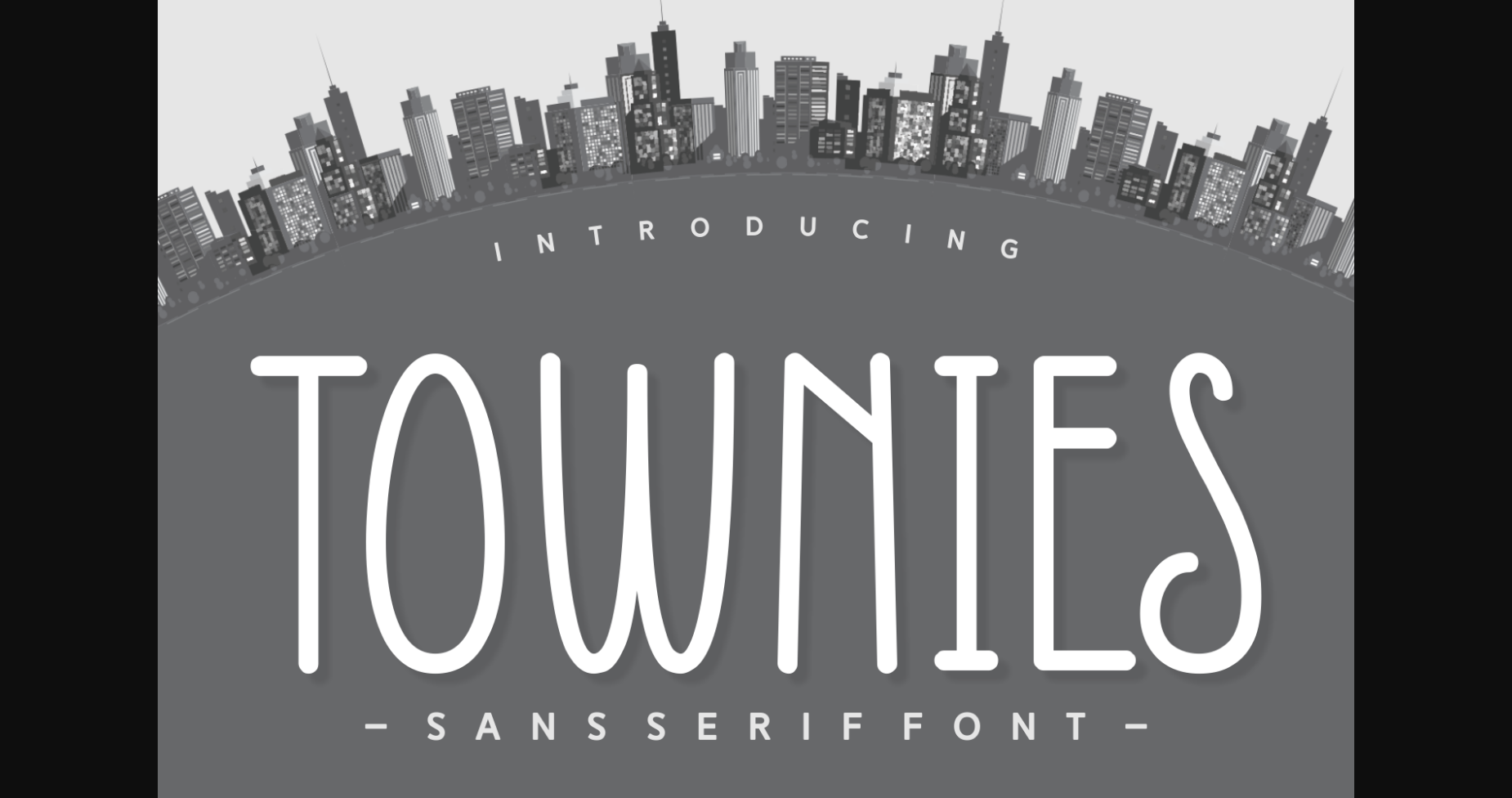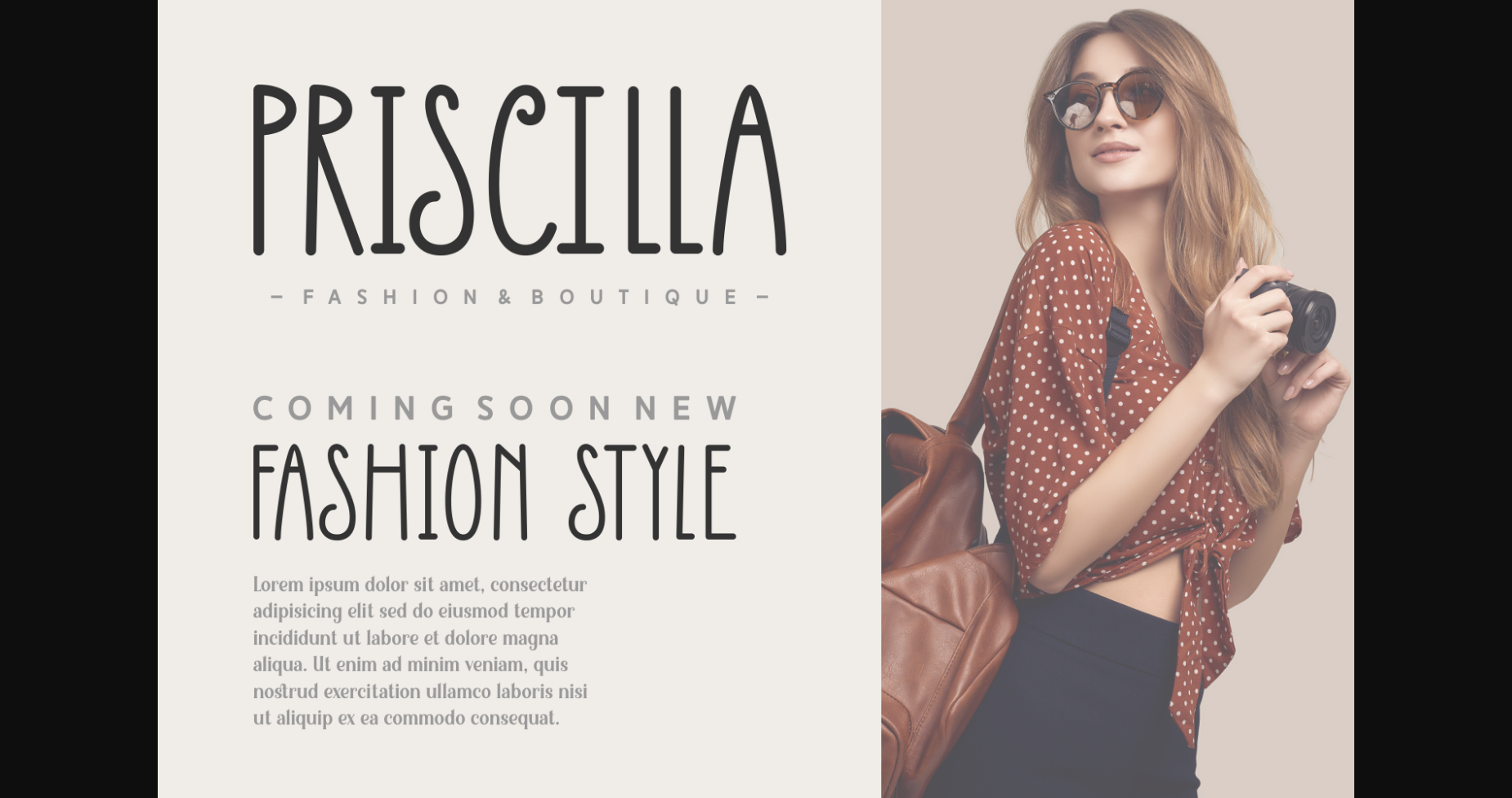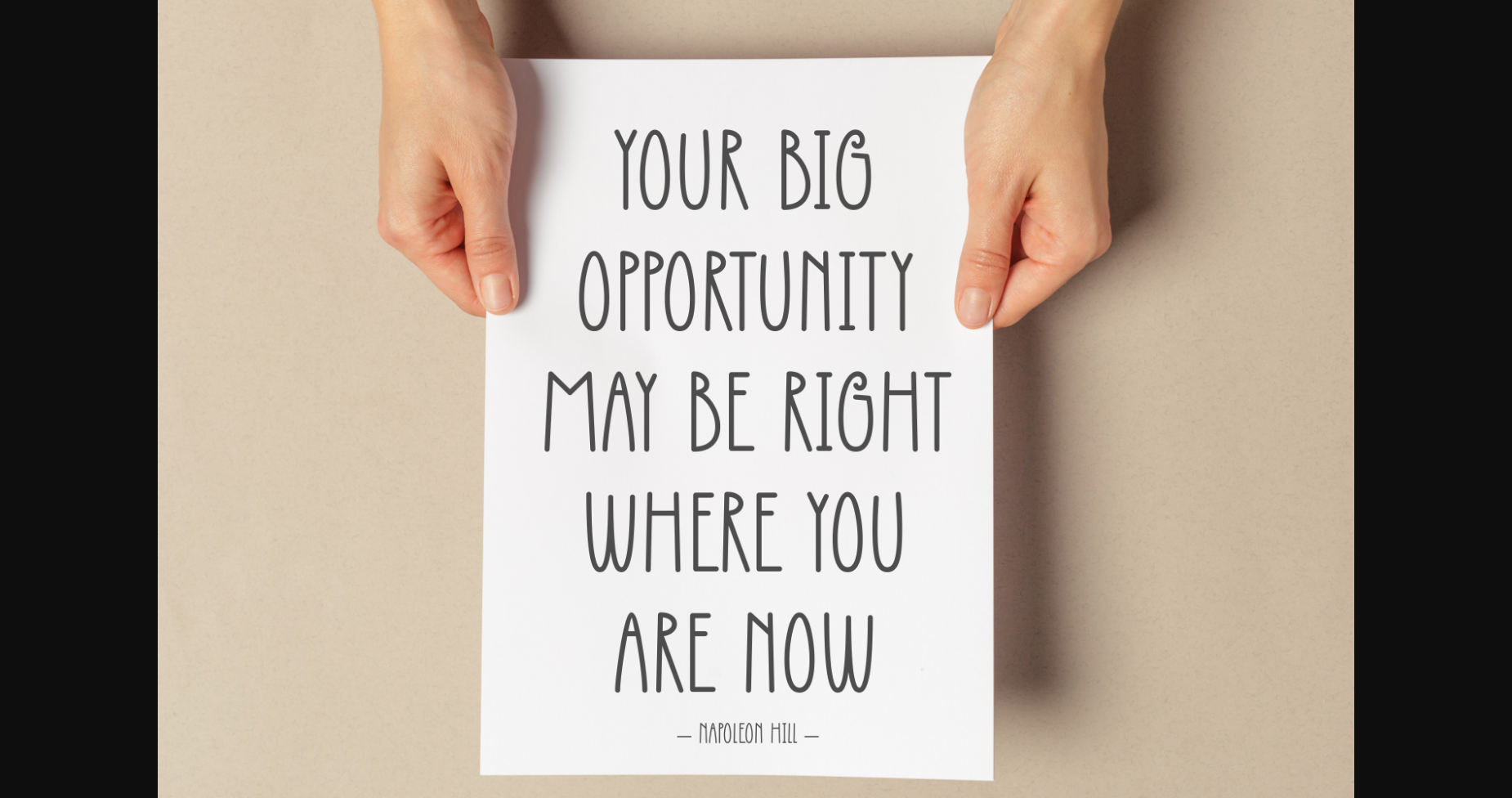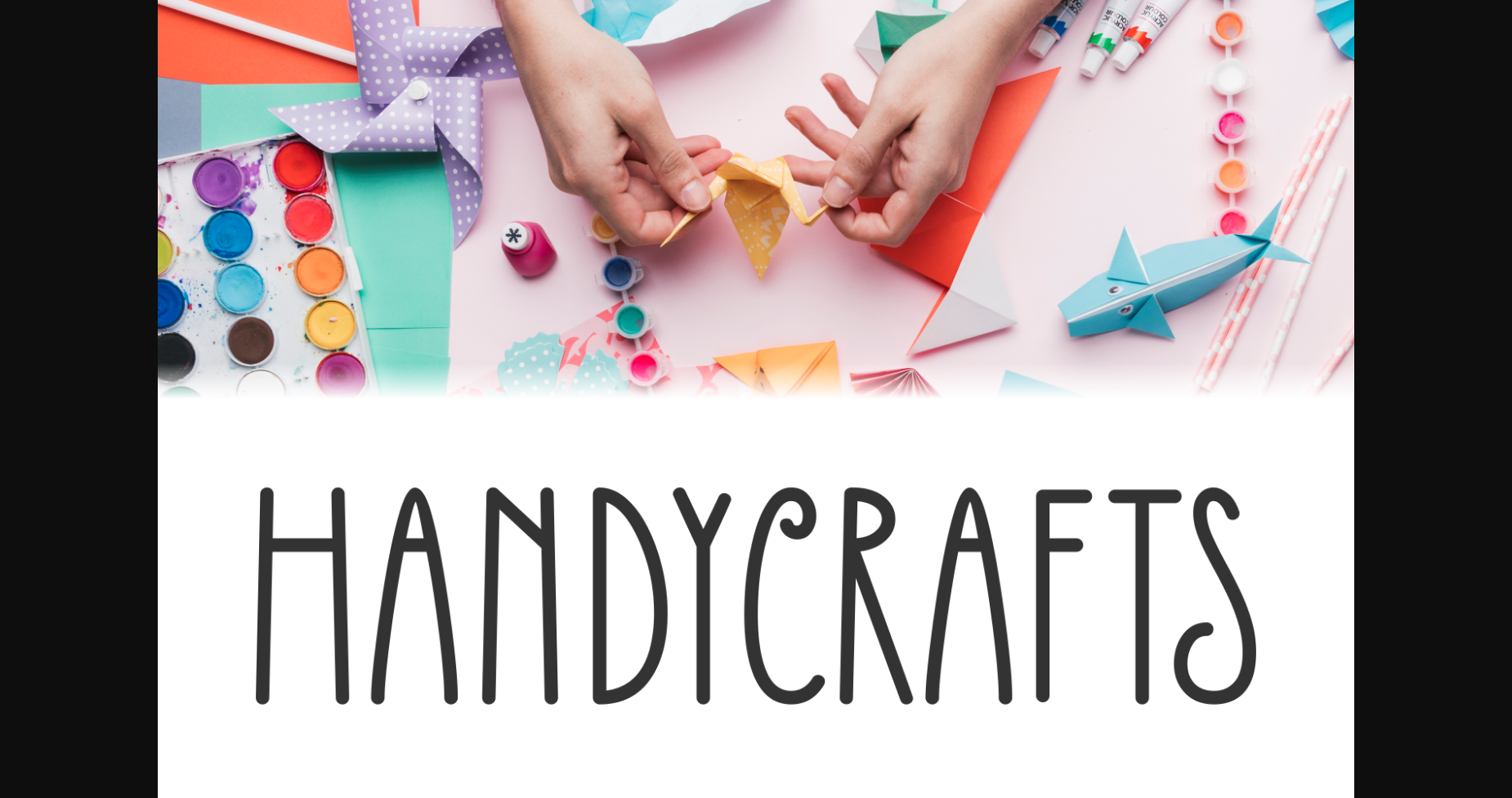
Townies is a cute, simple lettered and clean sans serif font. No matter the topic, this font will be an incredible asset to your fonts’ library, as it has the potential to elevate any creation.